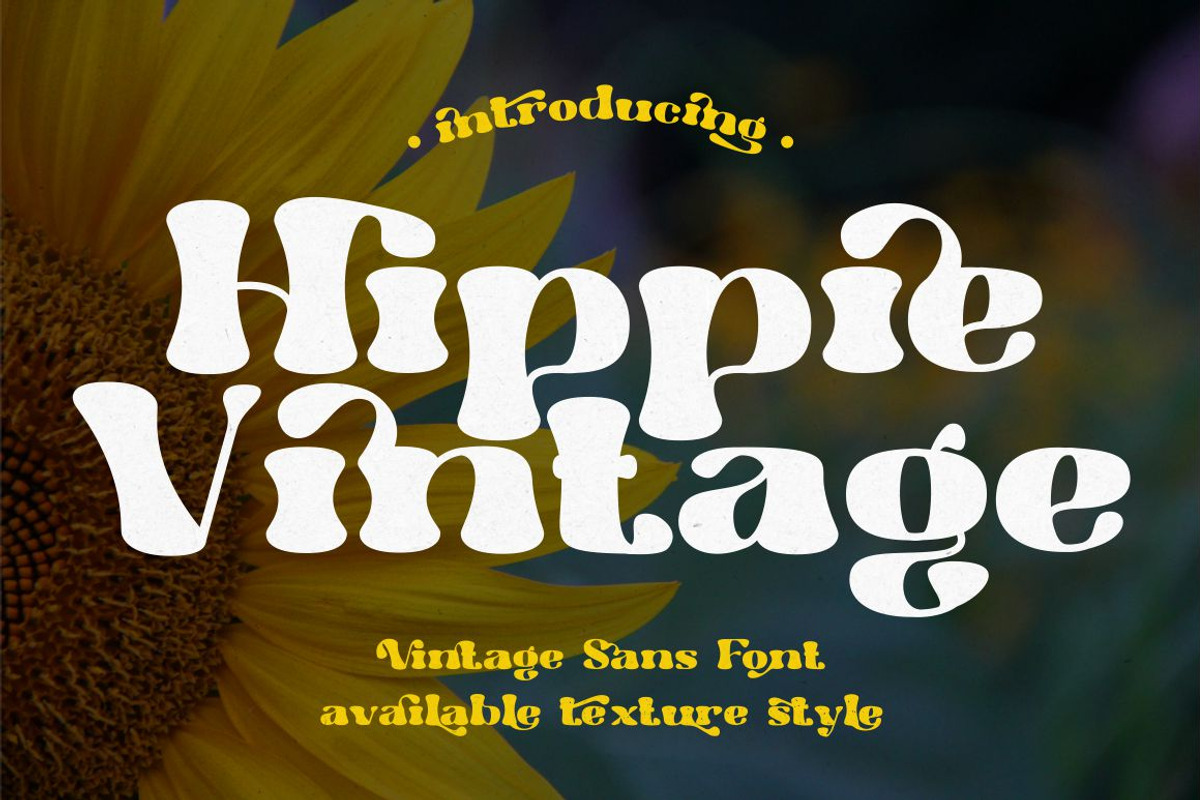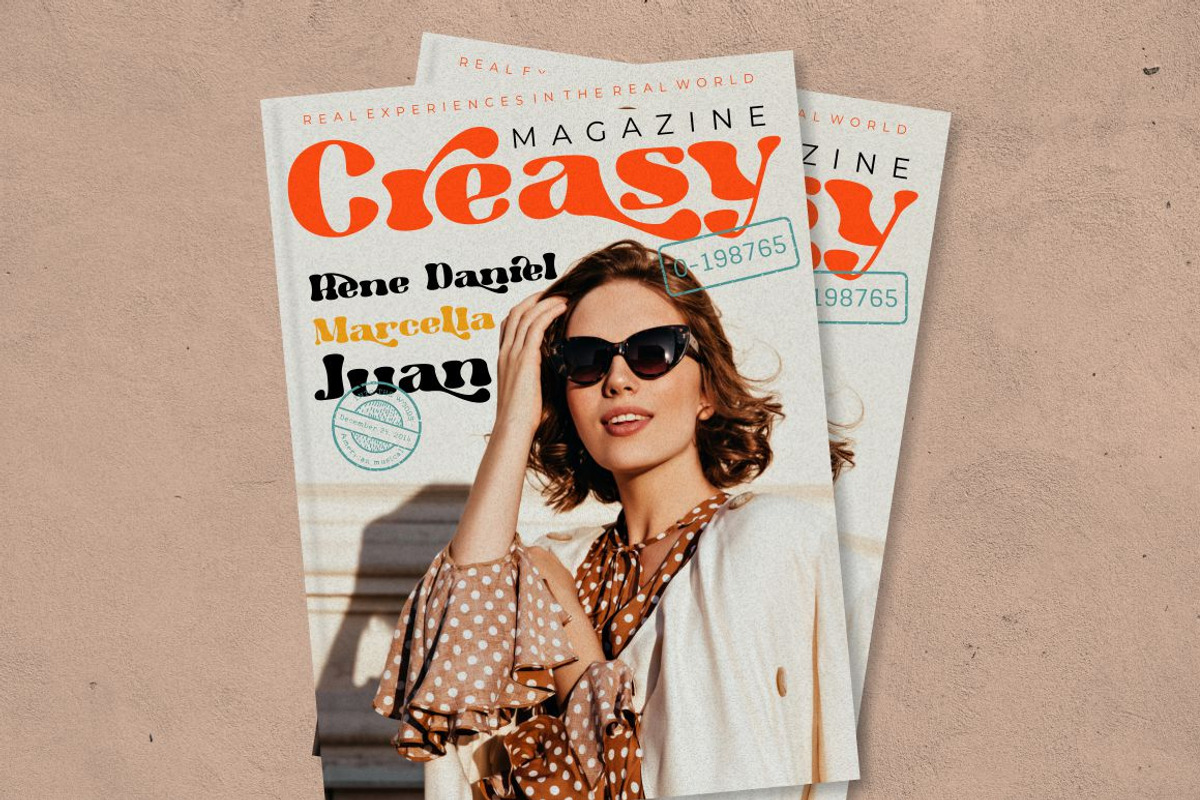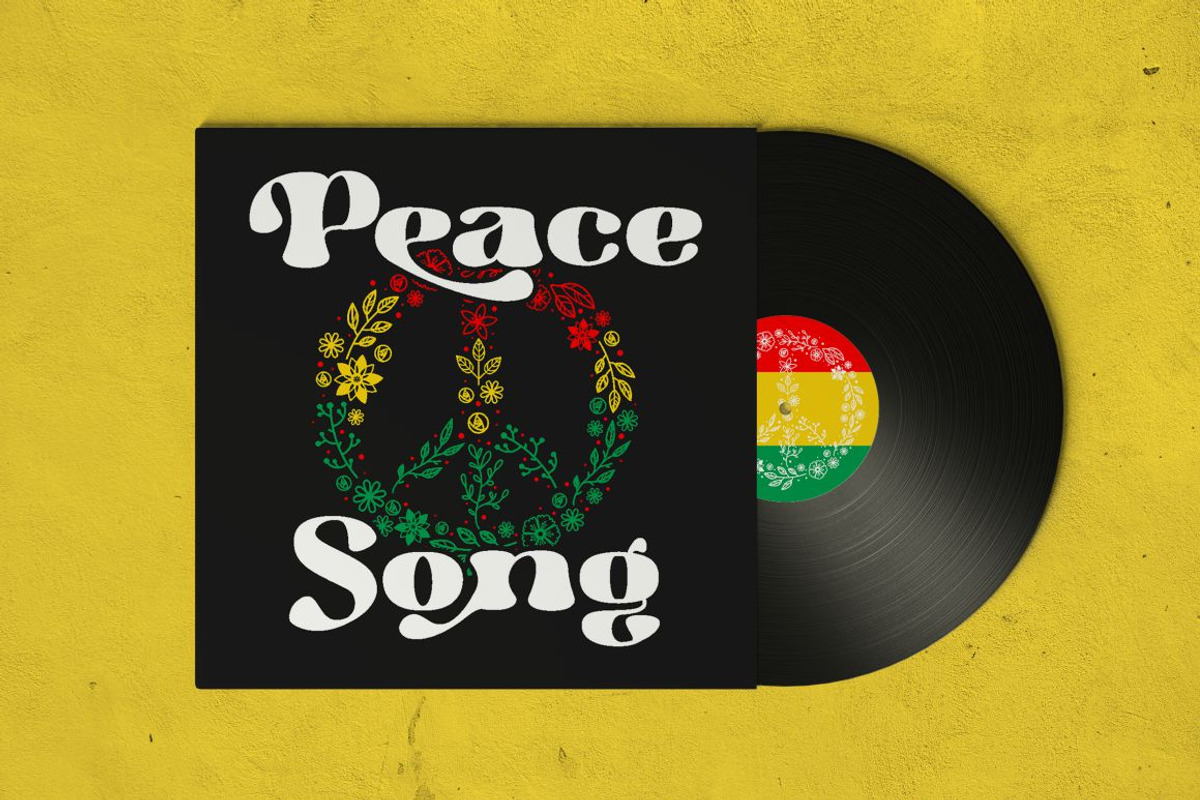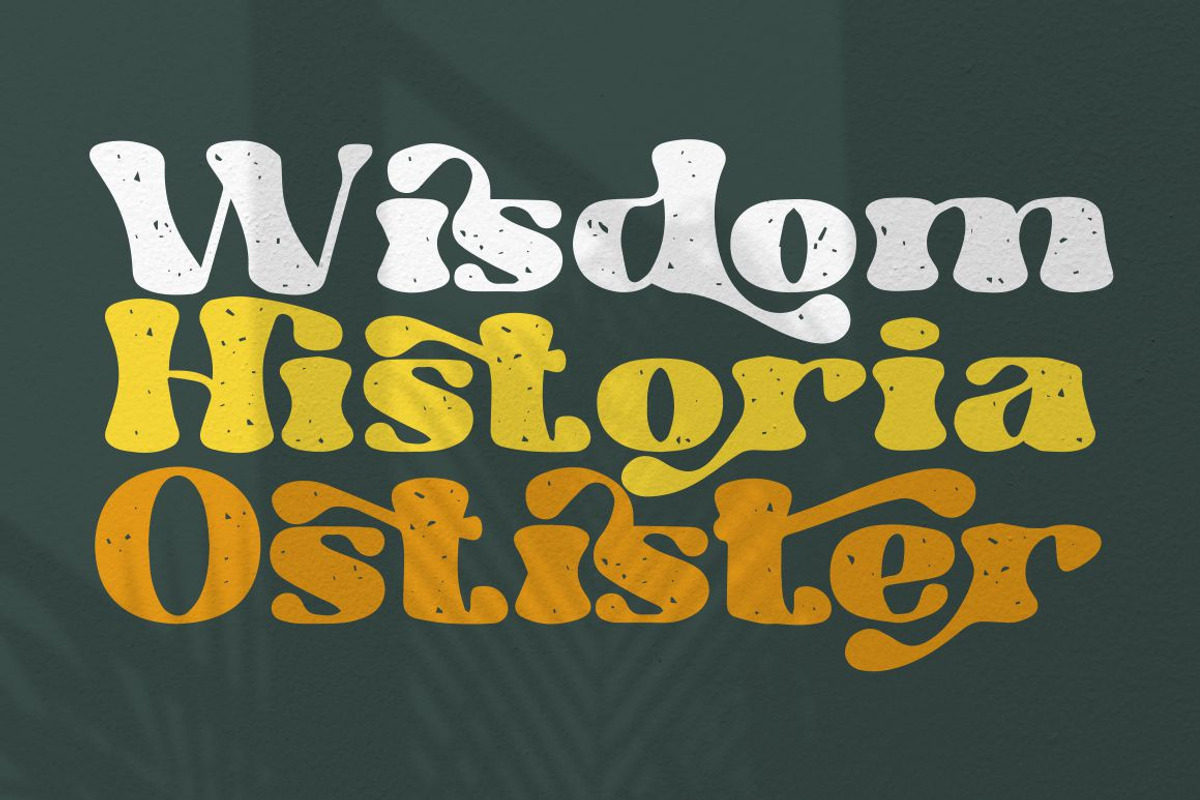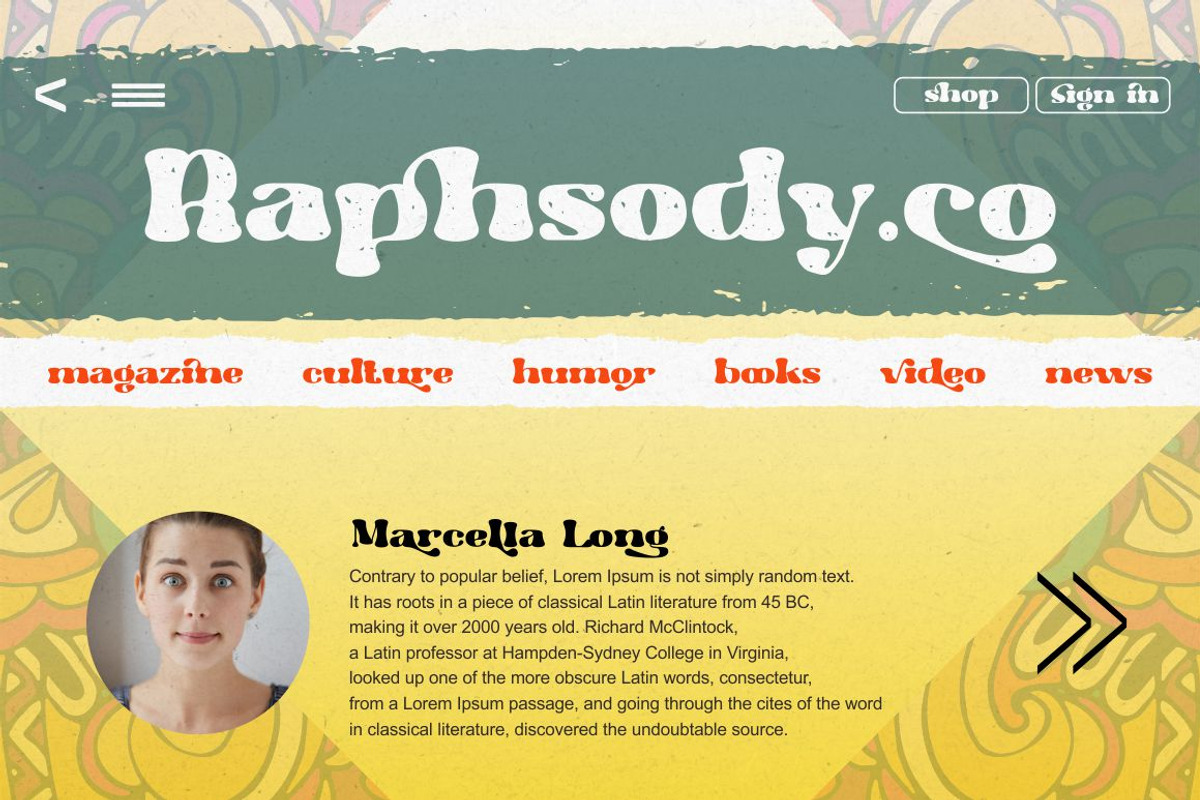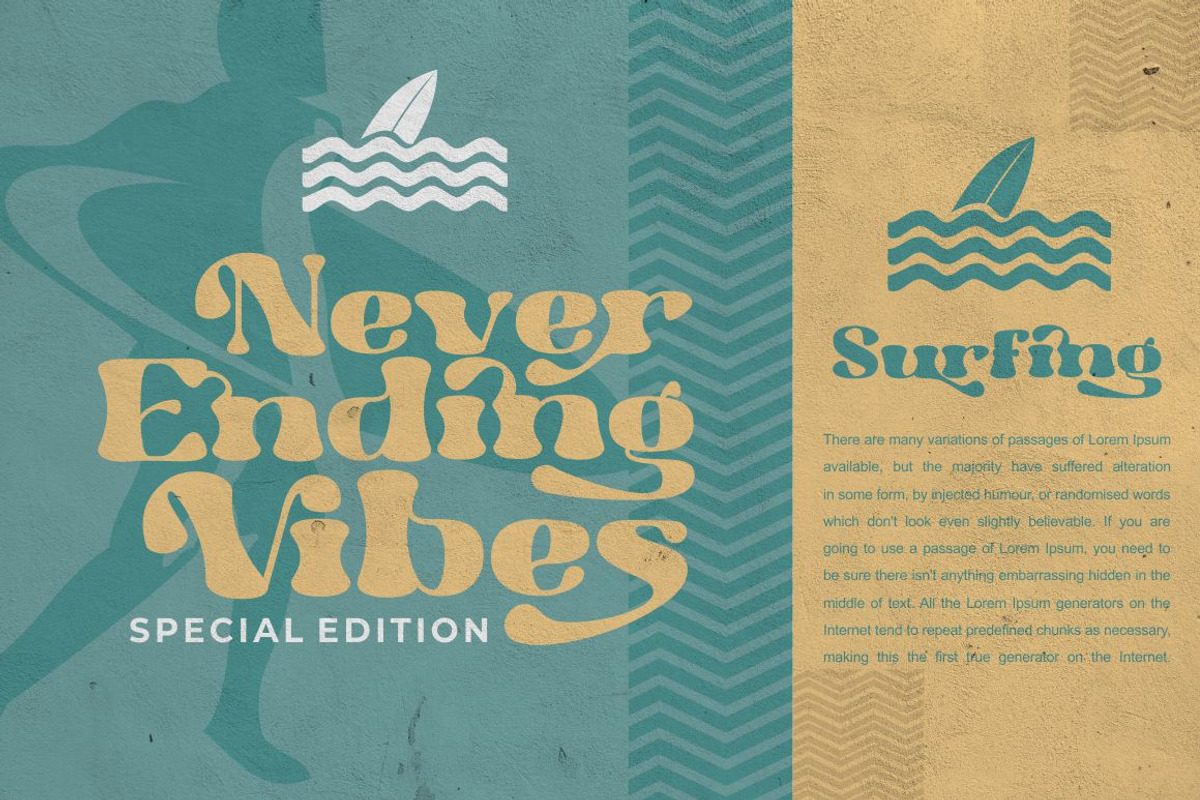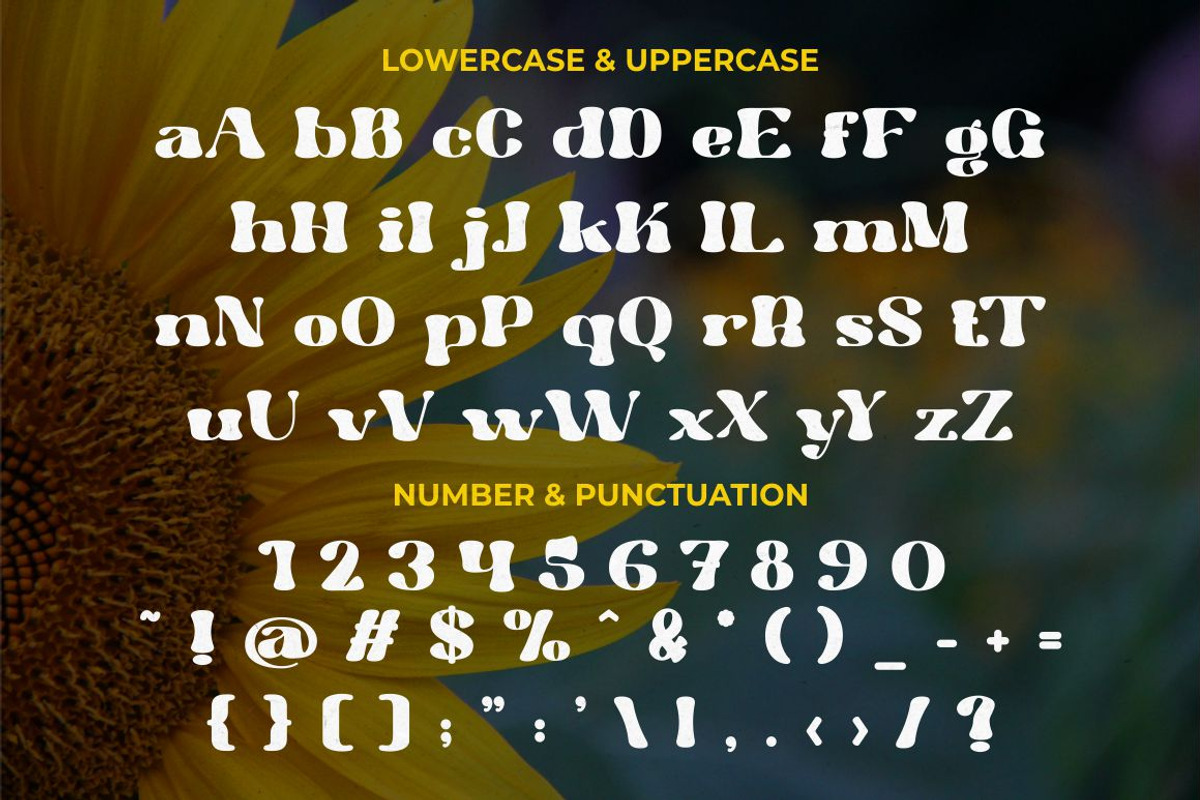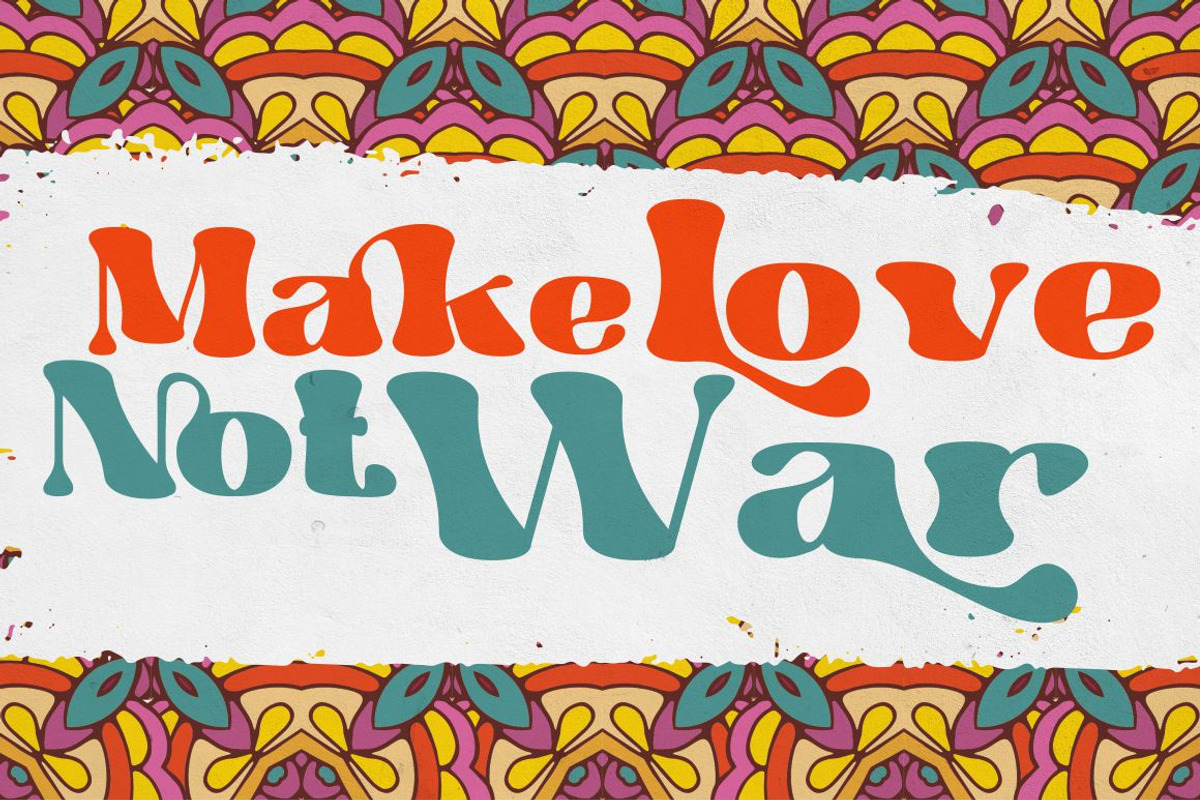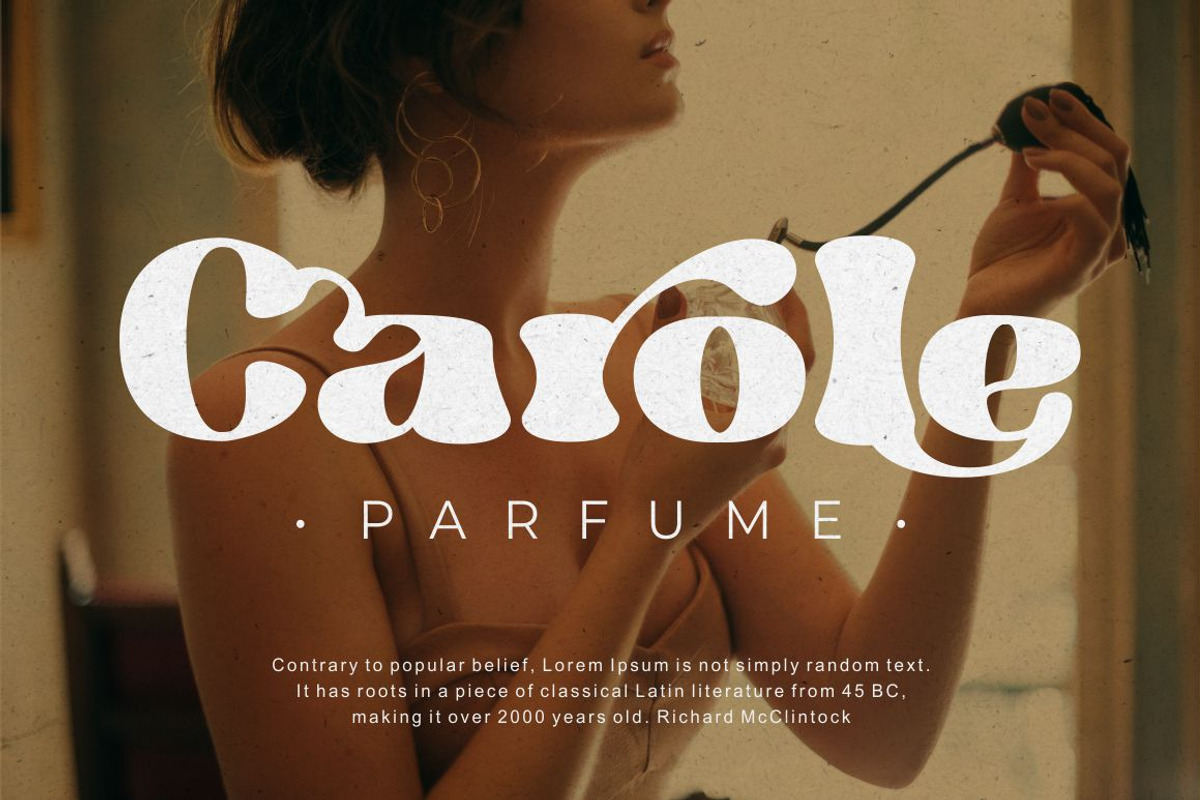
Hippie Vintage - Vintage Sans Font
Hippie Vintage’s bold, groovy, clean and unique with vintage fell. Hippie Vintage is very versatile sans font that works great with vintage themes. Hippie Vintage is a vintage sans serif font with beautiful ligatures, tons of alternative glyphs and multilingual support. Helps to create layout design in 60s or 70s design projects. Come with open type feature with a lot of alternates, its help you to make great lettering. Hippie Vintage best uses for heading headlines, cover, poster, logos, quotes, product packaging, merchandise, social media & greeting cards and many more.
Comes with feature :
- Opentype (Alternates And Ligatures)
- Number, Punctuation And Symbols
- Multilanguage Support.